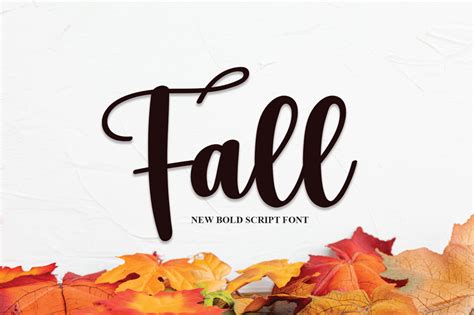
Discover the Best Fall Fonts on Dafont to Make Your Projects Pop!
Why Use Fall Fonts?
Fall fonts are perfect for any project that needs a little extra touch of autumn. Whether you’re designing a greeting card, a logo, or a website, these fonts can help you create something that’s eye-catching and unique. Plus, using the right fonts can make your projects stand out from the crowd.
Discover the Best Fall Fonts on Dafont
Here are some of the best fall fonts available on Dafont. Each font has its own unique features and styles, so you’re sure to find something perfect for your project.
1. Autumn Leaves
This font is perfect for any project that needs a touch of fall. It features a unique, hand-drawn style that’s perfect for creating greeting cards and other projects. This font also includes a bonus set of autumn-themed icons, which can be used to add a special touch to your projects.
2. Fall Festival
Fall Festival is a classic font with a whimsical touch. This font features a bold and playful style that’s perfect for any project that needs a touch of fun. This font also includes a bonus set of autumn-themed icons, which can be used to add a special touch to your projects.
3. Autumn Dreams
This font is perfect for any project that needs a touch of romance. It features a unique, hand-drawn style that’s perfect for creating greeting cards and other projects. This font also includes a bonus set of autumn-themed icons, which can be used to add a special touch to your projects.
4. Harvest Time
This font is perfect for any project with a rustic touch. It features a unique, hand-drawn style that’s perfect for creating greeting cards and other projects. This font also includes a bonus set of autumn-themed icons, which can be used to add a special touch to your projects.
Example of Discover the Best Fall Fonts on Dafont to Make Your Projects Pop!
For example, you can use Autumn Leaves to create a stunning logo for your business. The hand-drawn font will give your logo a unique and one-of-a-kind look. Plus, you can use the bonus autumn-themed icons to add a special touch to your logo.
Point of View
Using the right fonts can make your projects stand out from the crowd. With so many fonts to choose from, it can be difficult to know which ones are the best. Fortunately, Dafont offers a great selection of fall fonts that are perfect for any project. With the right font, you can make your projects pop!